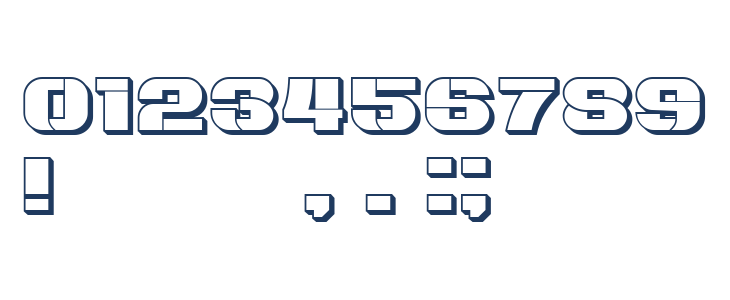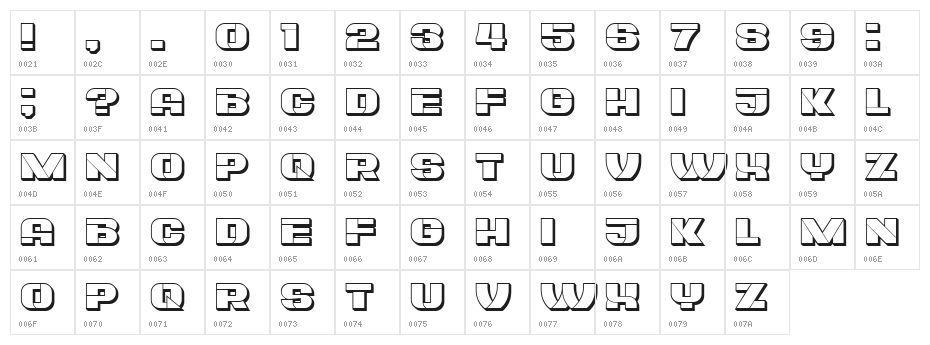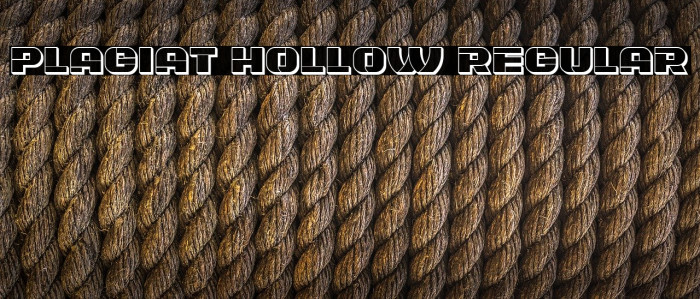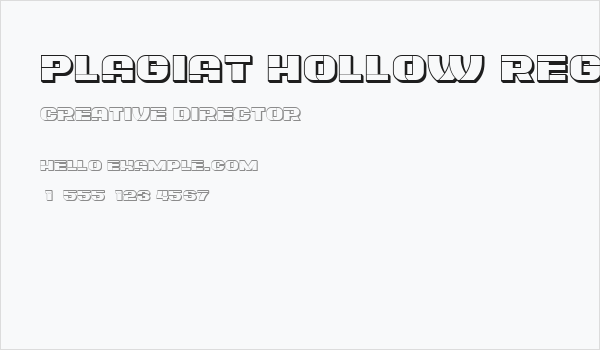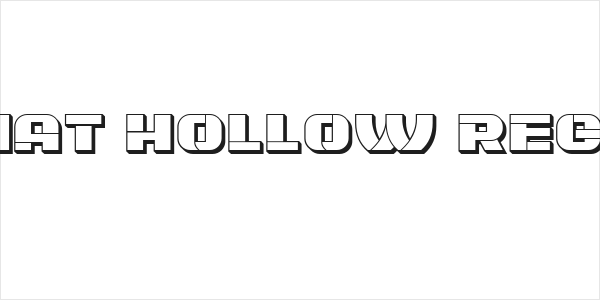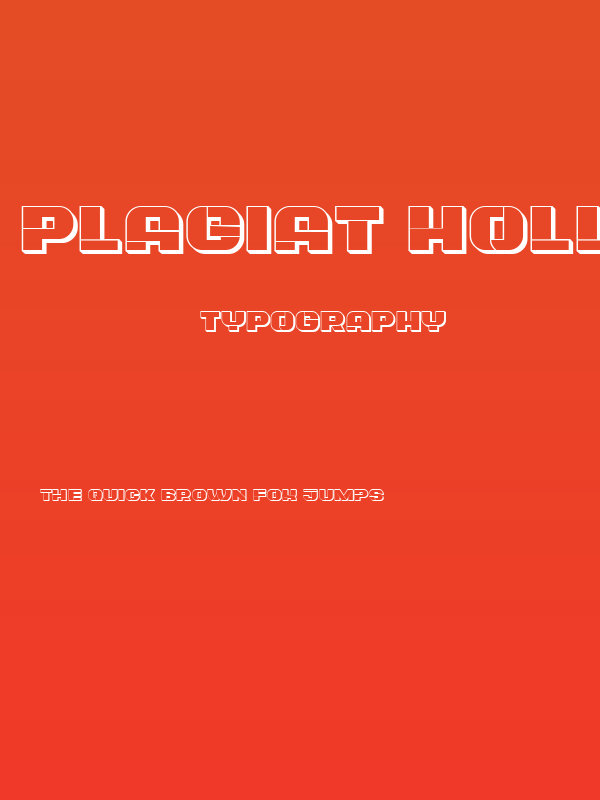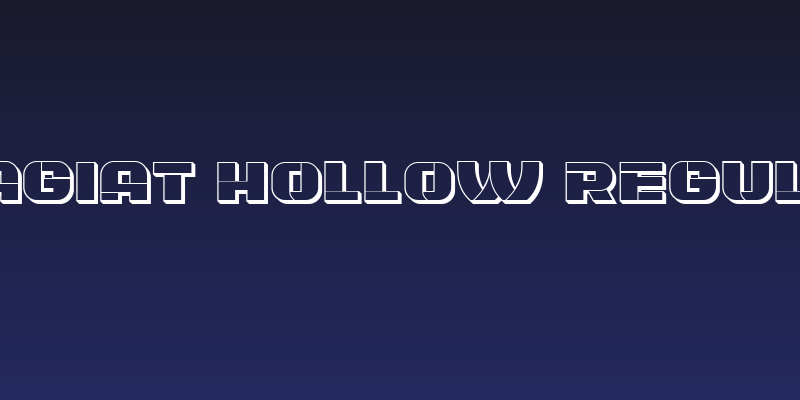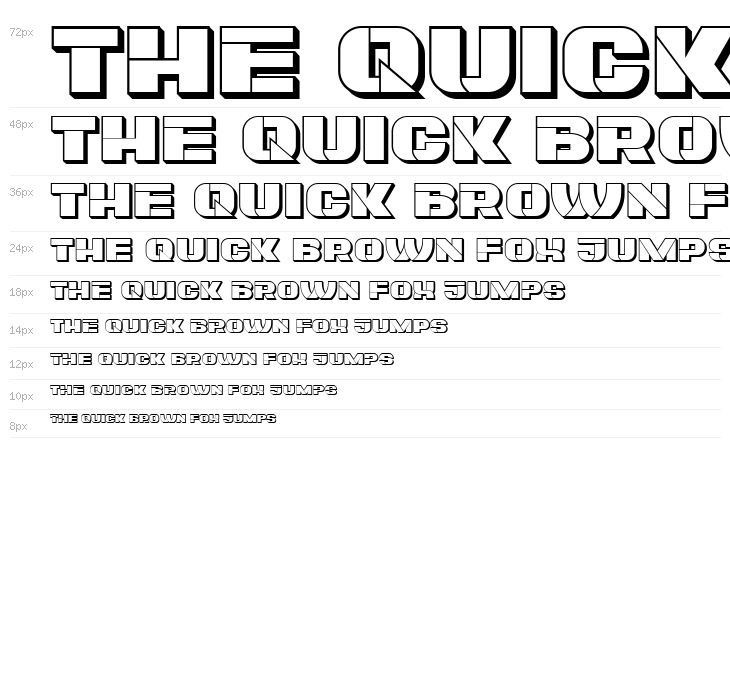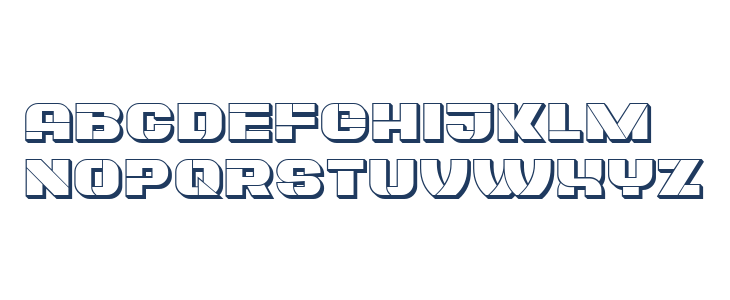
Plagiat Hollow Regular Font
Plagiat Hollow Regular Description
This font features a bold, hollow design with a strong geometric structure. Each character is outlined with a thick black border, creating a striking contrast against the white interior. The uppercase letters are uniform in height, with a blocky and angular appearance that gives a sense of stability and strength. The numbers and special characters follow the same design principles, ensuring consistency across all glyphs. This font's hollow style adds a unique visual interest, making it stand out in any design. The overall look is modern and eye-catching, suitable for projects that require a bold statement.
| Proposed Projects | Ideal for posters, logos, headlines, and any design that needs a bold, modern touch. |